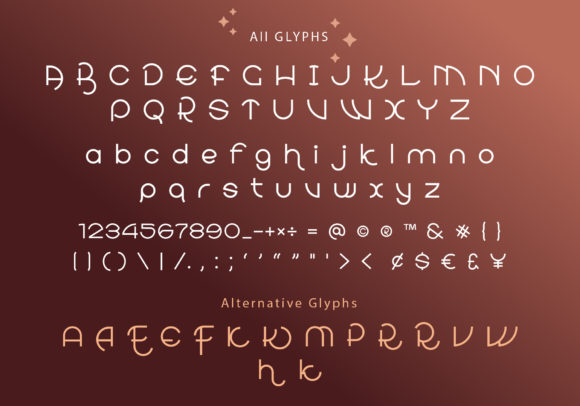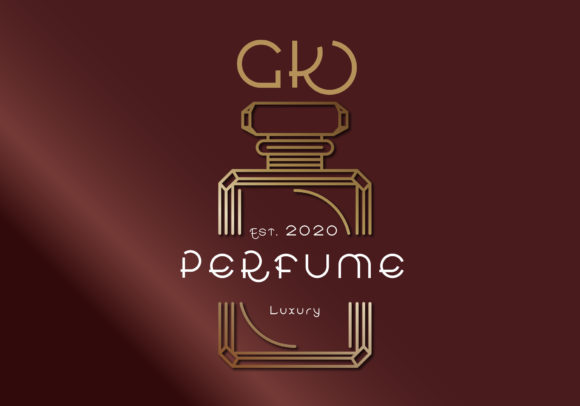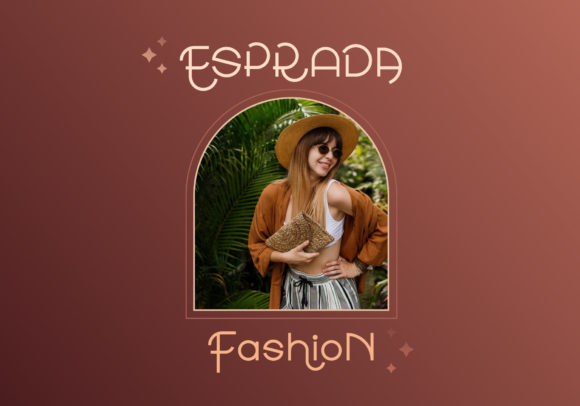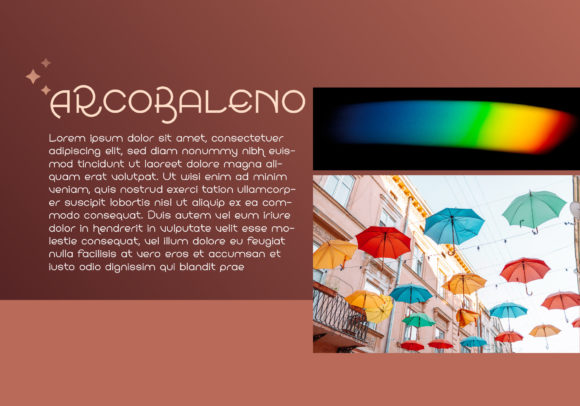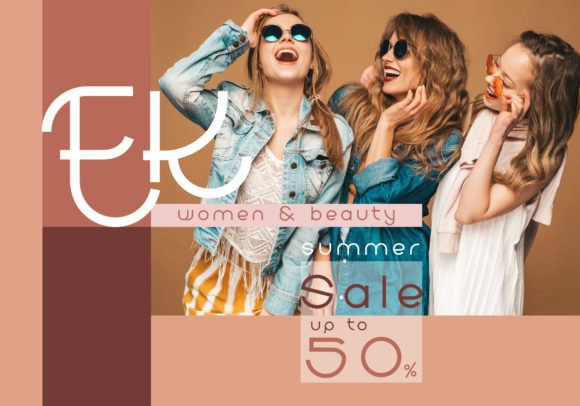
Balenare Font: Elevate Your Designs with a Touch of Modern Elegance
In the world of typography, fonts play a crucial role in conveying the message and aesthetic of a brand or design. Among the myriad of fonts available, the Balenare font stands out for its modern sans serif style and classy appeal. This versatile font is perfect for a wide range of applications, including branding, logos, magazines, flyers, social media posts, and more. In this article, we’ll dive into the features and benefits of the Balenare font, exploring how it can elevate your designs and help you achieve your creative goals.
What is Balenare Font?
Balenare is a contemporary sans serif font designed to bring a touch of sophistication and elegance to any design project. Its clean lines, balanced proportions, and modern aesthetic make it an excellent choice for designers looking to create visually appealing and professional-looking materials. Whether you’re working on a brand identity, a marketing campaign, or a personal project, Balenare font offers the perfect blend of style and versatility.
Key Features of Balenare Font
- Modern Sans Serif Style: Balenare boasts a sleek and modern sans serif design, making it perfect for contemporary brands and designs that require a clean and minimalist look.
- Classy Appeal: The font’s classy style ensures that your designs exude sophistication and elegance, making it ideal for high-end brands, luxury products, and premium services.
- Versatility: Balenare font is incredibly versatile and can be used across various platforms and applications, including print and digital media.
- Excellent Legibility: The font’s clear and balanced design ensures excellent legibility, making it perfect for body text, headings, and titles.
Use Cases for Balenare Font
Balenare font is suitable for a wide range of design projects, including:
- Branding and Logos: Create a lasting impression with a custom logo or brand identity that showcases your brand’s personality and values.
- Magazines and Editorials: Add a touch of sophistication to your publications with Balenare font, perfect for headings, titles, and body text.
- Flyers and Brochures: Grab attention and communicate your message effectively with eye-catching flyers and brochures featuring Balenare font.
- Social Media Posts: Elevate your social media presence with stylish and engaging posts that showcase your brand’s personality and aesthetic.
Benefits of Using Balenare Font
By incorporating Balenare font into your design projects, you can enjoy several benefits, including:
- Enhanced Visual Appeal: Balenare font adds a touch of modern elegance to your designs, making them more visually appealing and engaging.
- Improved Brand Identity: A consistent and professional font choice like Balenare helps establish a strong brand identity and reinforces your brand’s message.
- Increased Versatility: With Balenare font, you can create a wide range of design materials, from print to digital, without compromising on style or legibility.
In conclusion, Balenare font is an excellent choice for designers and crafters looking to add a touch of modern elegance to their design projects. Its classy style, versatility, and excellent legibility make it perfect for a wide range of applications, from branding and logos to magazines, flyers, and social media posts. By incorporating Balenare font into your design workflow, you can elevate your designs, establish a strong brand identity, and create visually appealing materials that engage and inspire your audience.